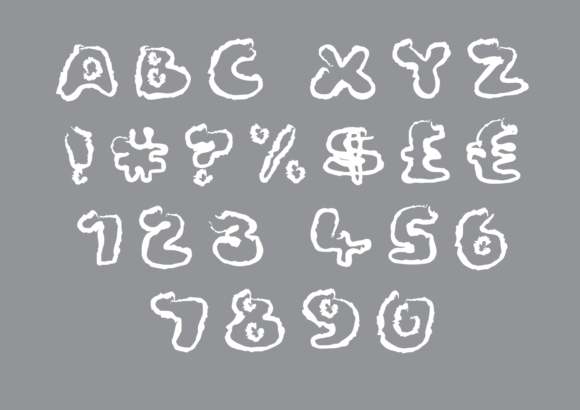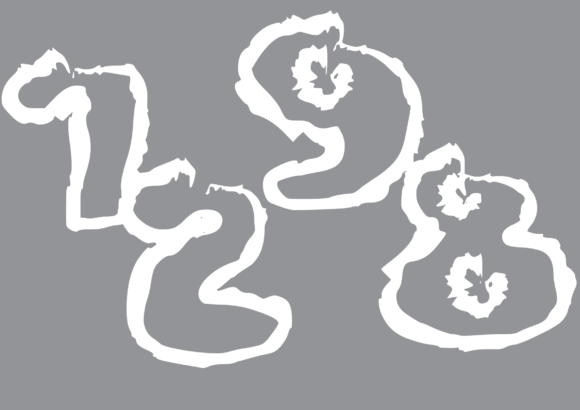
Introduction to Rough Neck Font
Rough Neck is a fun yet rough-looking display font created with uneven brushed strokes.
Add a playful and cool touch to your designs with this unique font .